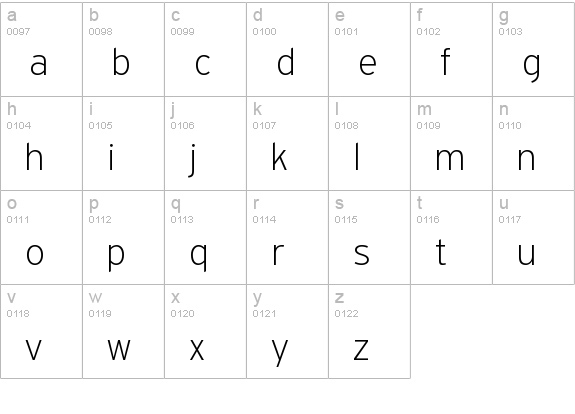
PFHighwaySansPro-Thin is a delicate, low-contrast variant in the PFHighwaySansPro typeface family \xE2\x80\x94 well suited to fashion editorial, minimal branding, and high-contrast display.
PFHighwaySansPro-Thin is a sleek and modern typeface that exudes elegance and sophistication. With its thin and delicate strokes, this font brings a sense of refinement to any design project. Perfect for use in branding, editorial design, and web applications, PFHighwaySansPro-Thin offers a clean and professional look that is sure to make a lasting impression. The best part? PFHighwaySansPro-Thin is available for free download at FontsMarket.com. Now you can access this high-quality font without any cost, making it a great choice for designers looking to elevate their work without breaking the bank. Don't miss out on the opportunity to enhance your projects with the beauty and versatility of PFHighwaySansPro-Thin - download it today and see the difference it can make!